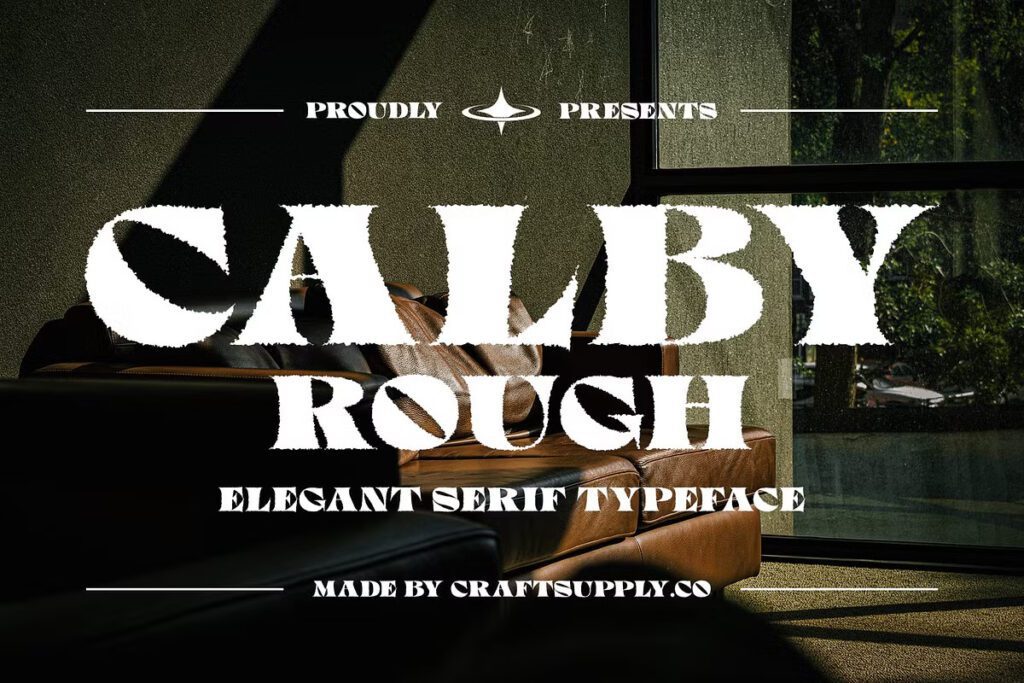
Calby Rough – A Bold Serif Font with Rugged Elegance
Introducing Calby Rough, a beautifully bold serif font by Craft Supply Co. that brings a striking balance of elegance and raw, artistic flair. Its rugged texture and classic serif design make it the ideal choice for designers looking to create impactful and sophisticated projects.
Why Choose Calby Rough?
1. Rugged Yet Elegant Design: Calby Rough merges the refined sophistication of serif fonts with a unique rough texture, creating an aesthetic that is both stylish and bold. The rough effect adds depth and character, giving your typography a raw yet elegant charm.
2. Perfect for Impactful Projects: Whether you’re working on branding, posters, or editorial layouts, Calby Rough enhances your designs with a sophisticated yet rugged appeal. Its bold characters stand out, making it the ideal choice for logos, magazine spreads, promotional materials, and more.
3. Multilingual Support and Flexibility: Calby Rough comes with uppercase and lowercase characters, numerals, punctuation, and accents for multilingual support. It also features PUA Encoding, ensuring that you can access all glyphs and characters without any specialized design software.
Key Features of Calby Rough:
Two Styles: Regular and Italic versions.
Bold Serif with Rough Texture: Adds depth and artistic flair to your designs.
Multilingual Support: Includes accents for a variety of languages.
Elevate Your Designs with Calby Rough
Choose Calby Rough to bring a touch of rugged elegance to your next project. With its bold serif characters and rough texture, this font ensures your designs will stand out with both sophistication and artistic depth.